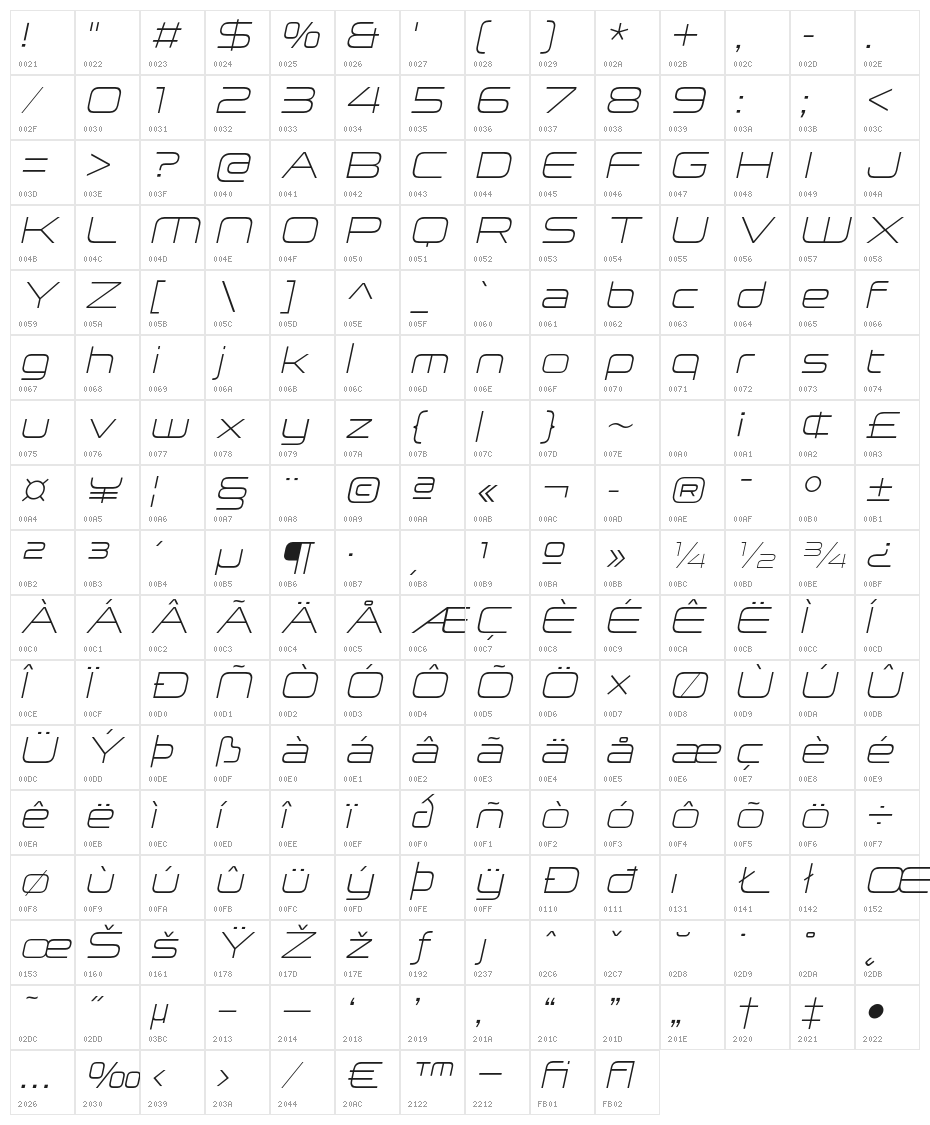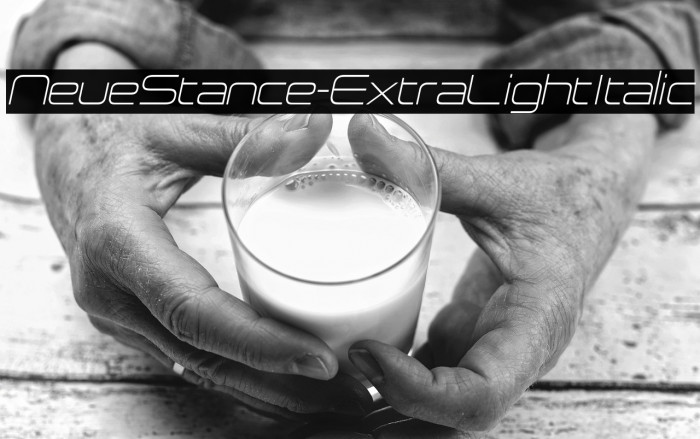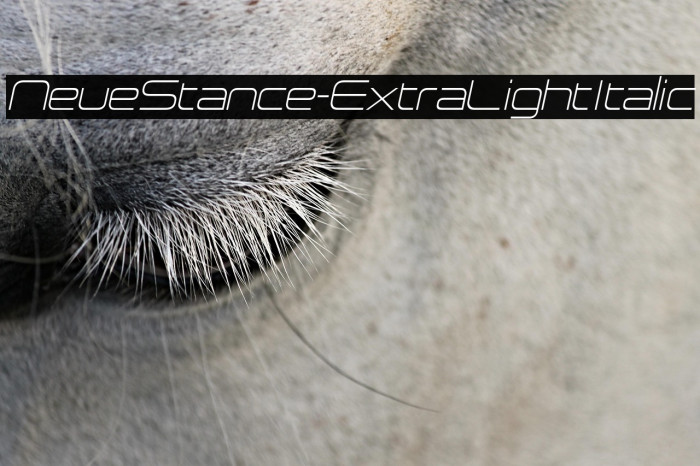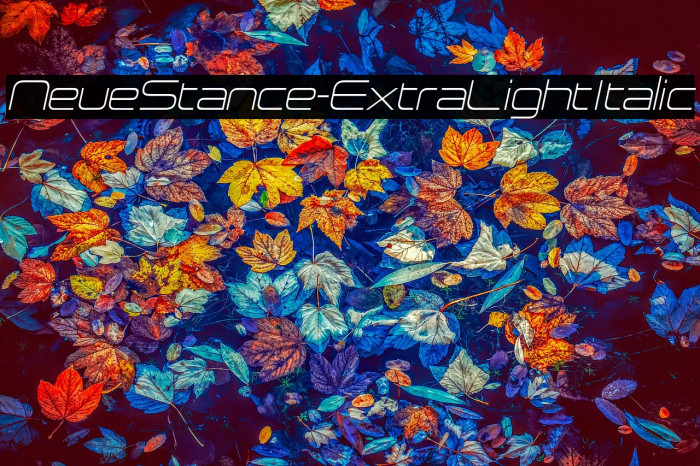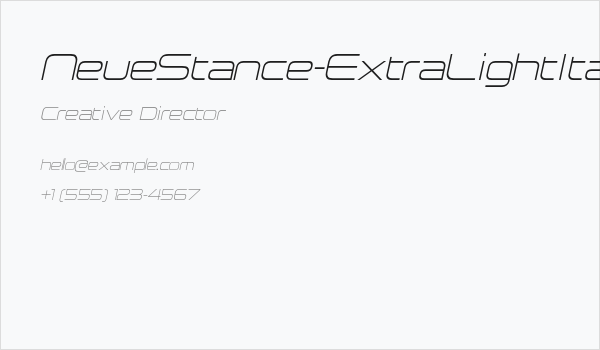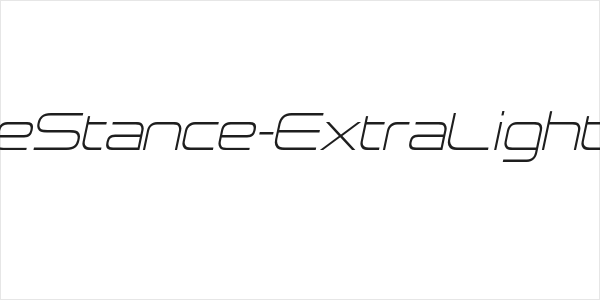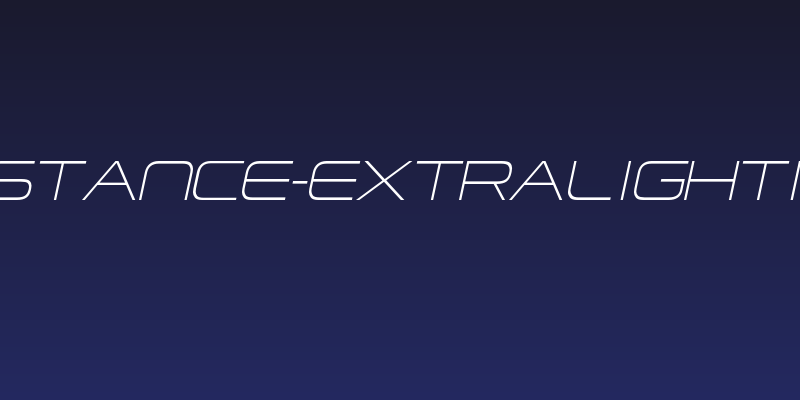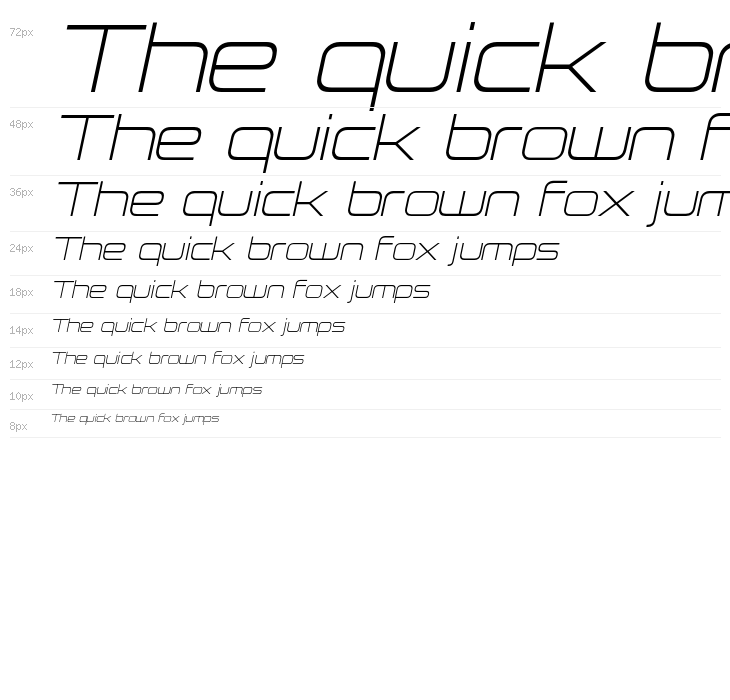
NeueStance-ExtraLightItalic Font
NeueStance-ExtraLightItalic Description
This font exhibits a sleek and modern design with an italicized style that gives it a dynamic and forward-leaning appearance. The characters are elongated and have a geometric structure, contributing to a futuristic aesthetic. The strokes are thin, maintaining an extra light weight that enhances its elegance and sophistication. The font's clean lines and minimalistic design make it suitable for contemporary projects. It includes a full set of uppercase and lowercase letters, numbers, and a variety of special characters, ensuring versatility in usage.
| Use Case | Headlines, Logos, Tech Branding |
| Proposed Projects | Ideal for modern branding, tech-related projects, sleek advertising, and minimalist design layouts. |